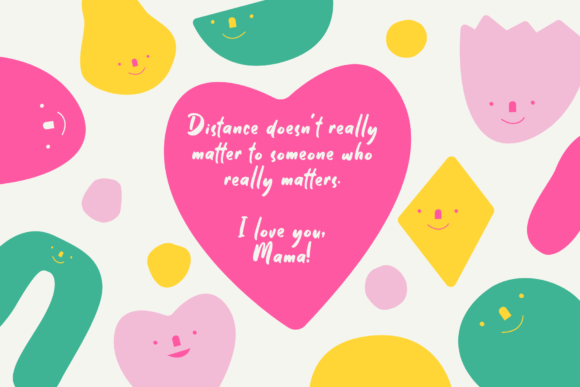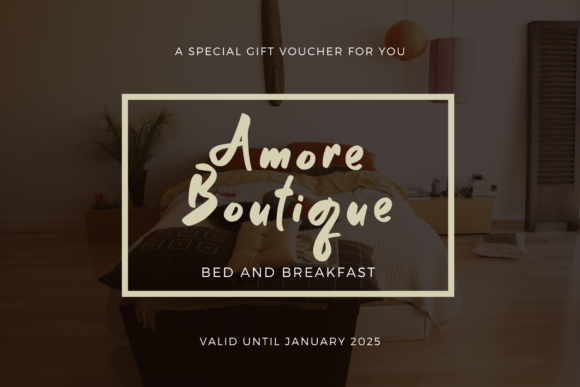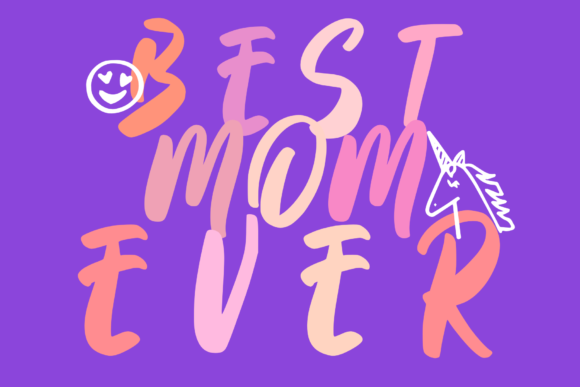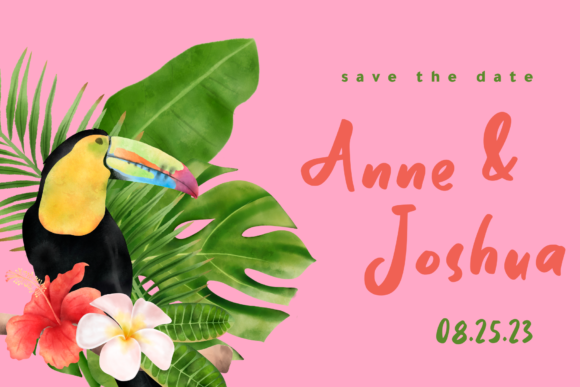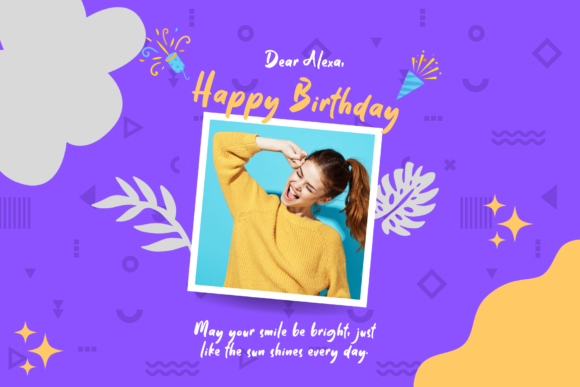
Letticia Font
About Letticia Font
Letticia is a cool and trendy looking, paint brushed handwritten font. Whatever the topic, this font will be a wonderful asset to your font library, as it has the potential to enhance any creation.